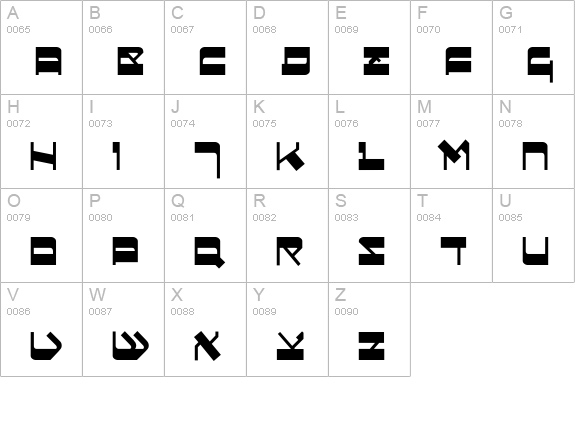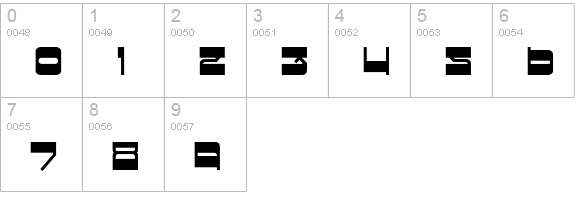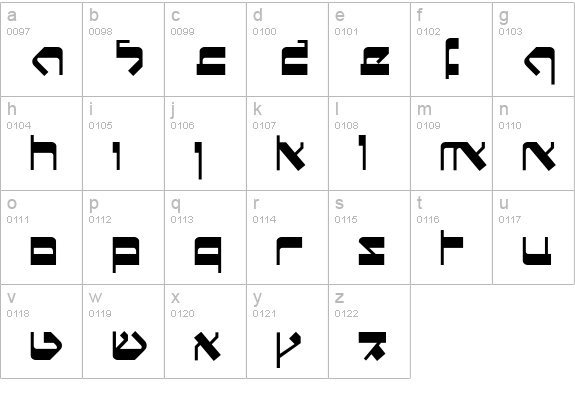
Circumcision-SansBold Font Details
Circumcision-SansBold is a modern and sleek font that exudes confidence and professionalism. With its clean lines and bold strokes, this typeface is perfect for making a statement in any design project. Whether you're creating a logo, poster, or website, Circumcision-SansBold will help your text stand out and grab attention. One of the best things about Circumcision-SansBold is that it is free to download at FontsMarket.com. This means that you can access this stylish font without any cost, making it a valuable addition to your font library. Don't miss out on the opportunity to elevate your designs with Circumcision-SansBold's bold and eye-catching aesthetic. Download it today and take your projects to the next level!